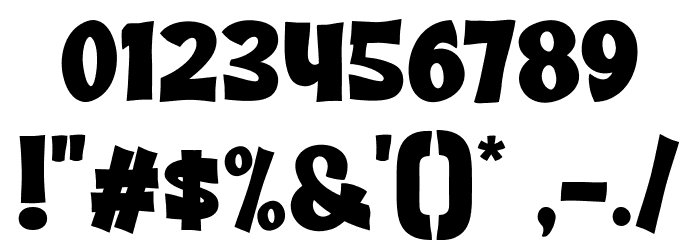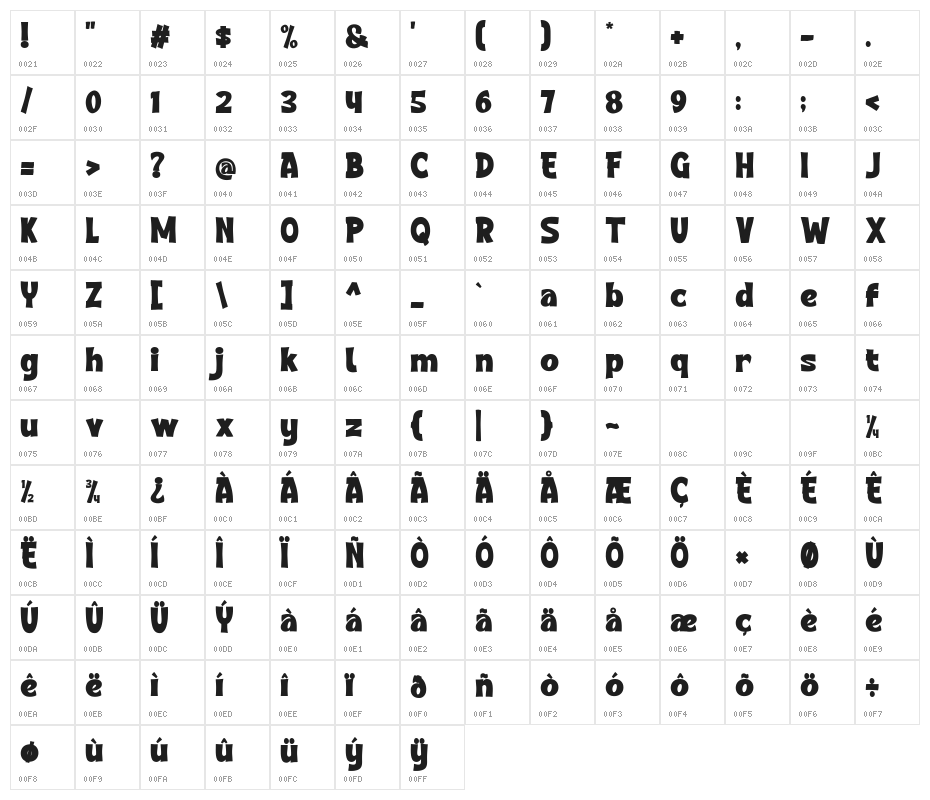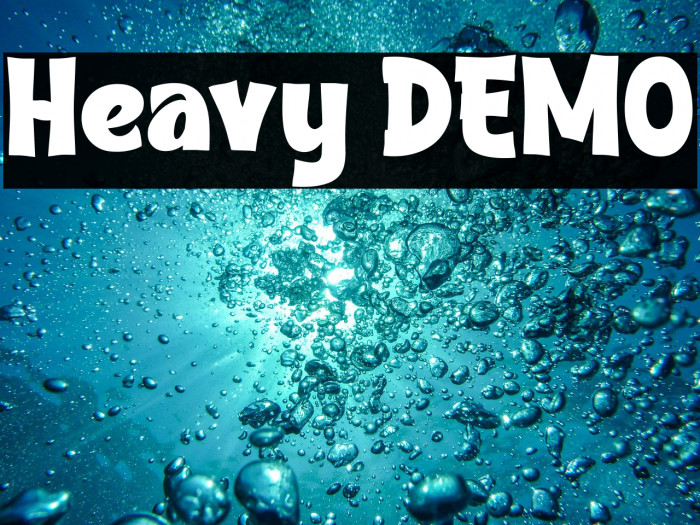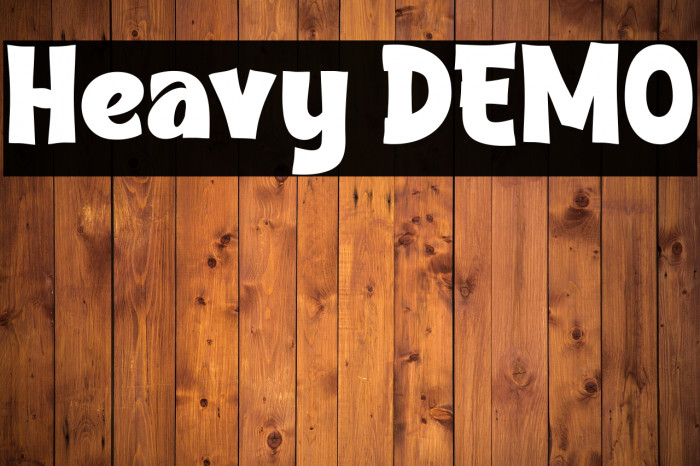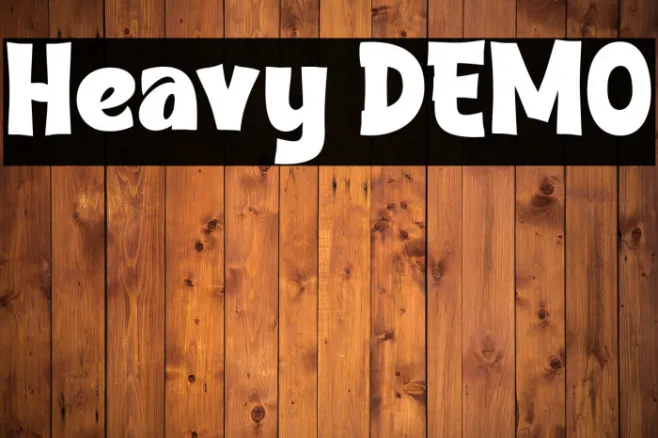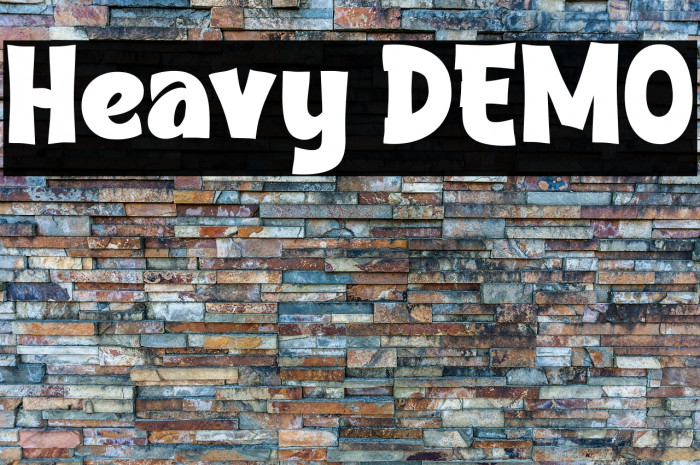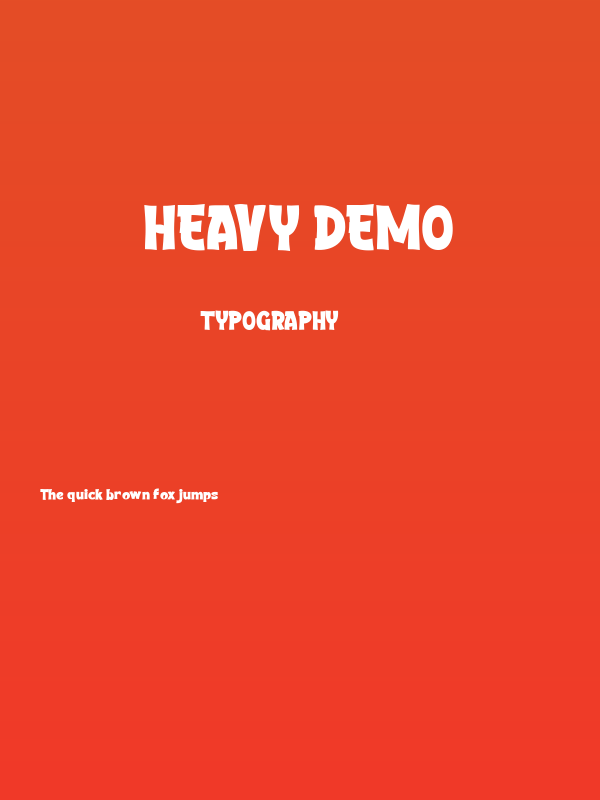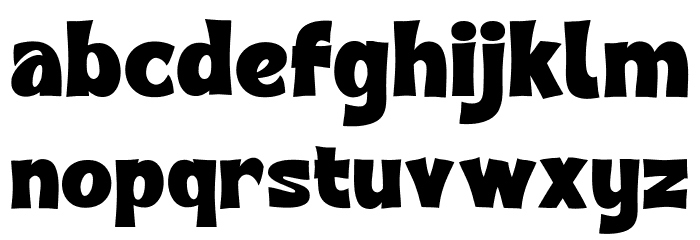
Heavy DEMO Font
Heavy DEMO Description
This font features bold, heavy strokes with a playful and slightly irregular design, giving it a lively and dynamic appearance. The characters are thick and robust, with a slight tilt and uneven baseline that adds to its whimsical charm. The uppercase letters are particularly prominent, while the lowercase letters maintain a consistent style with rounded edges and a friendly demeanor. The numerals are equally bold, ensuring visibility and impact. Special characters are well-integrated, maintaining the overall aesthetic. This font is ideal for projects that require a strong, attention-grabbing typeface with a touch of personality.
| Proposed Projects | Perfect for children's books, playful branding, posters, and any project needing a fun, bold typeface. |